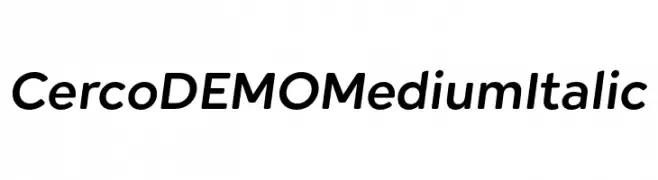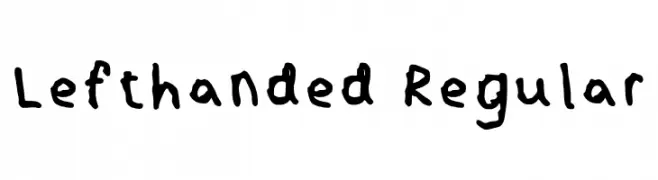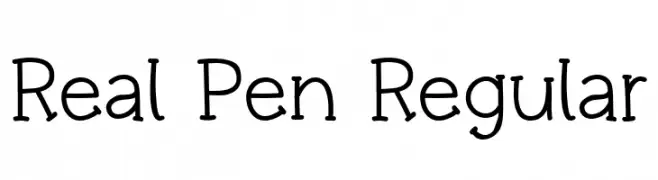
A modern, medium-weight italic sans-serif font with a sleek and professional appearance.
A playful, rounded font with a hand-drawn, casual style.
A creative font inspired by American Sign Language, featuring hand gesture representations for each character.
A playful, handwritten font with rounded edges and a casual style.
A playful, rounded font with a bold and friendly appearance.
A semaphore flag-inspired font with figures holding flags to represent characters.
A charming, elegant handwritten font with smooth, flowing cursive letters.
A casual, handwritten font with uneven strokes and an organic flow.
A playful, rounded font with smooth curves and a friendly appearance.
A playful, rounded font with a friendly and approachable style.